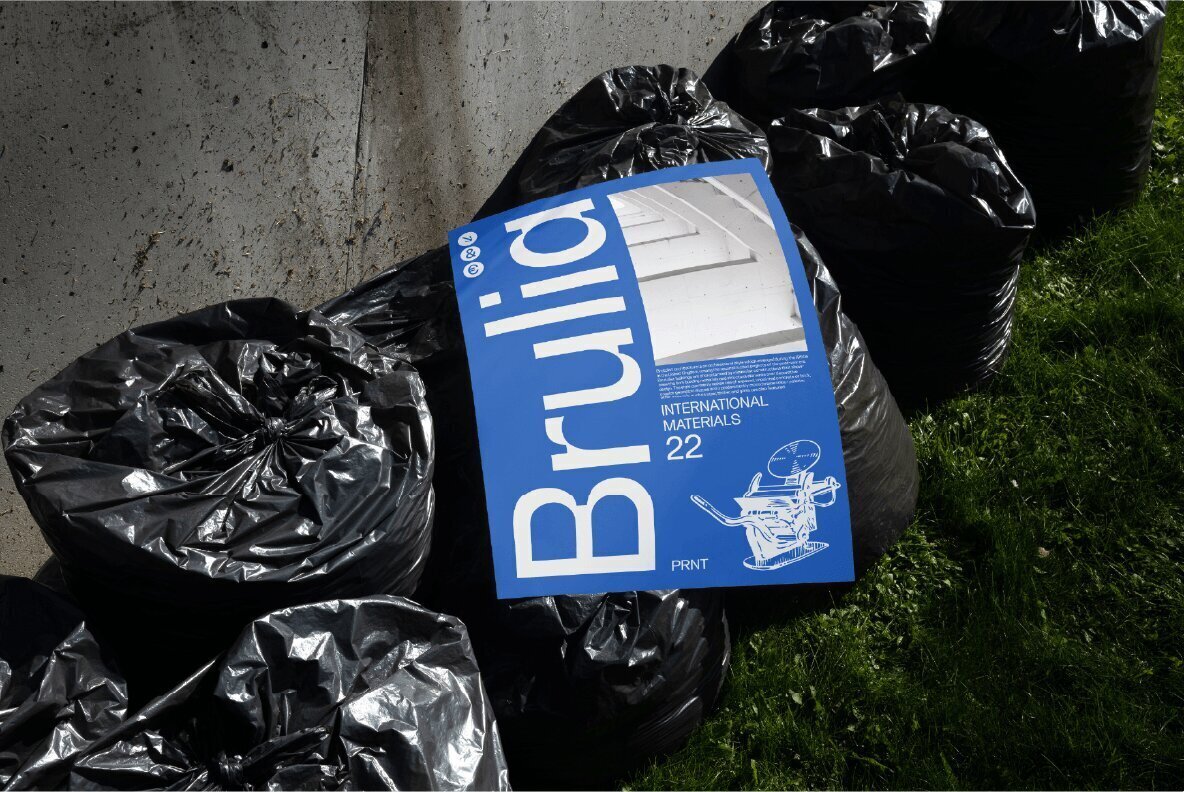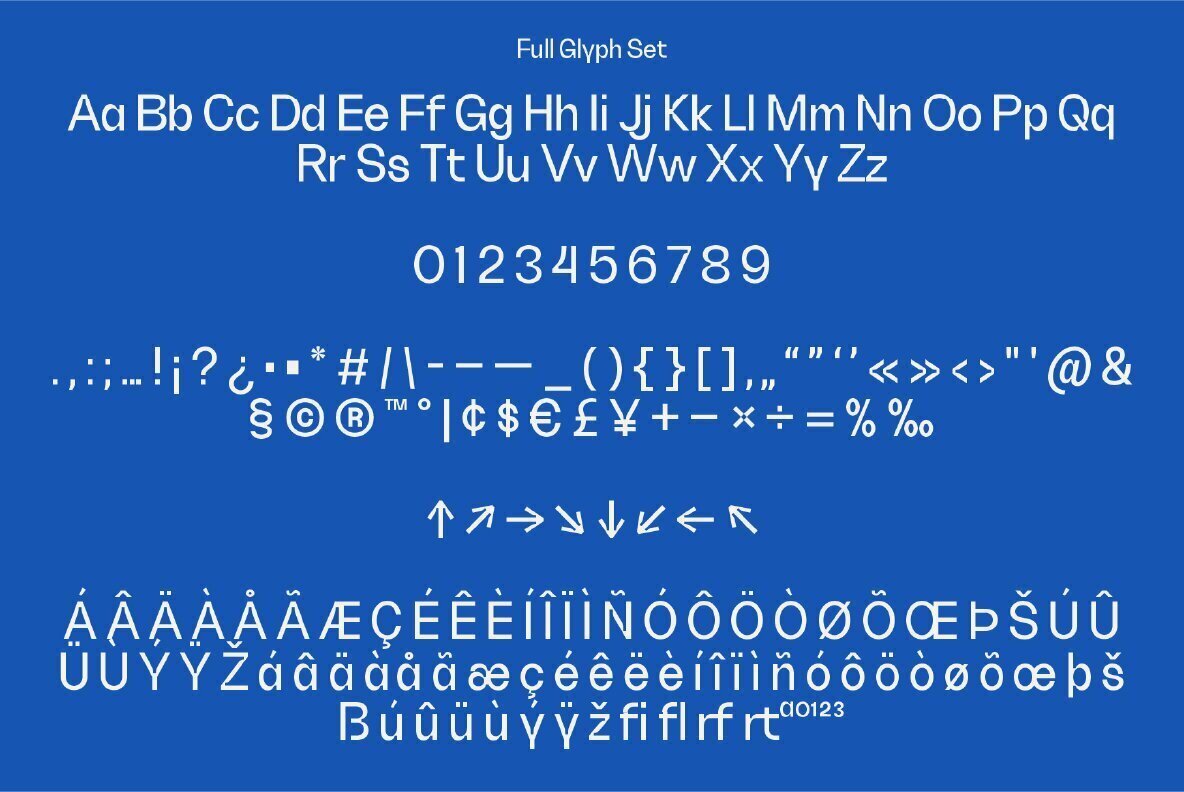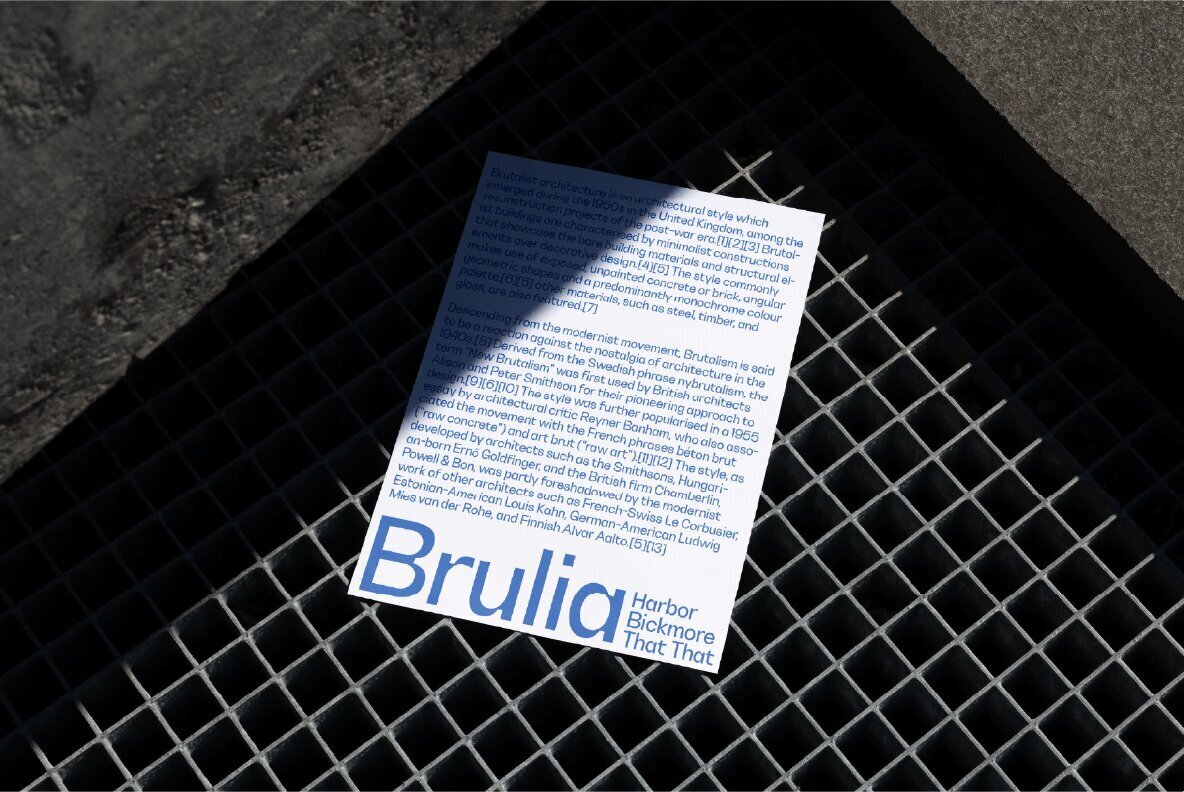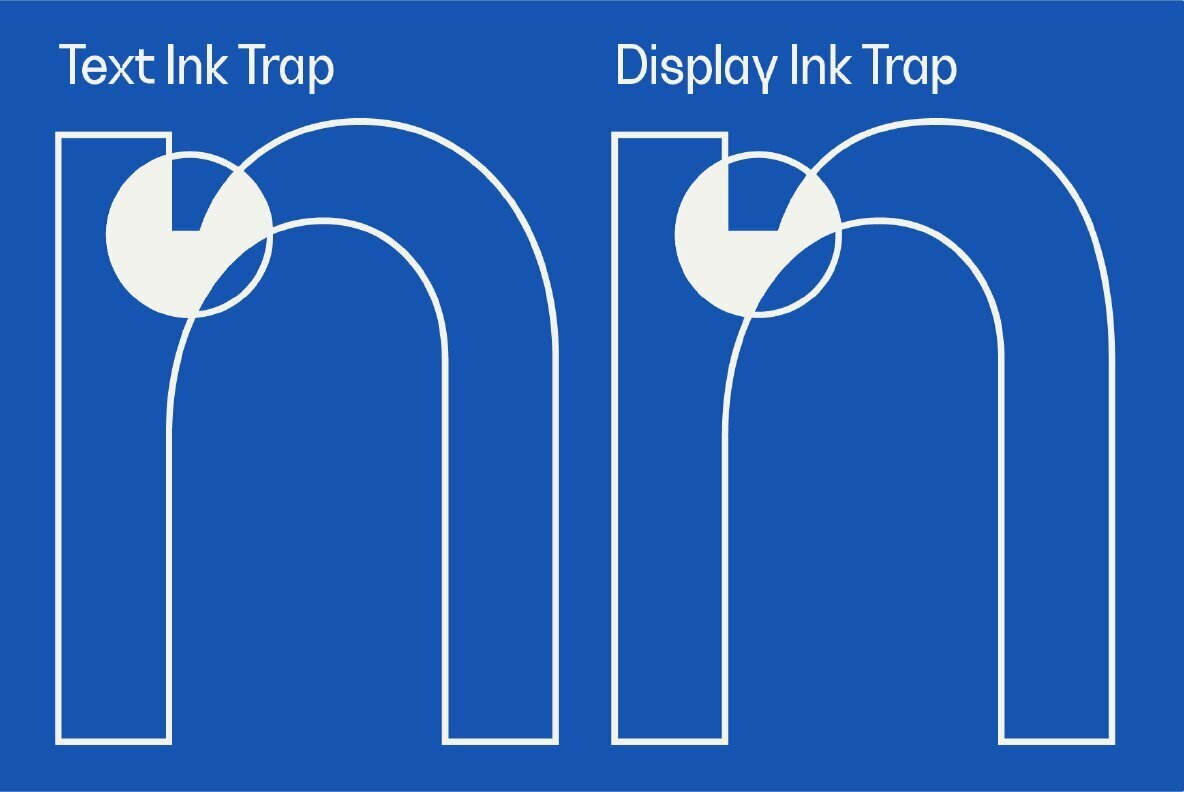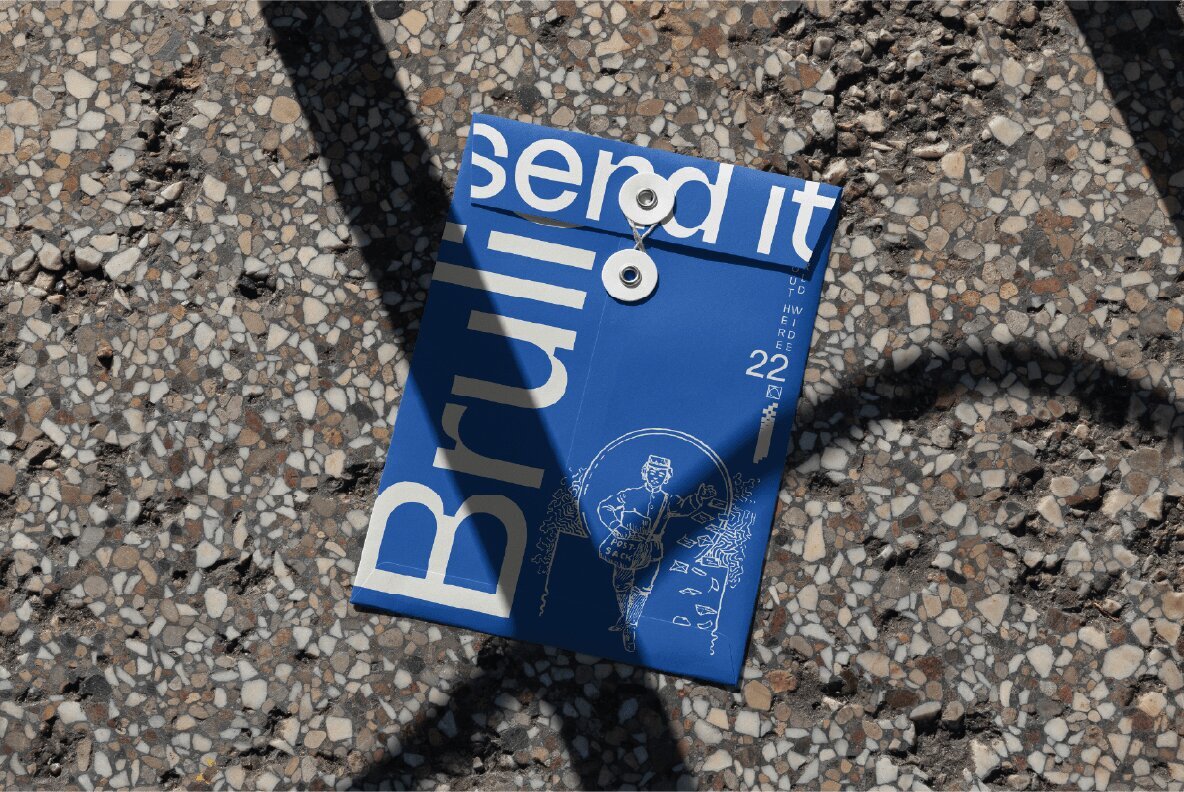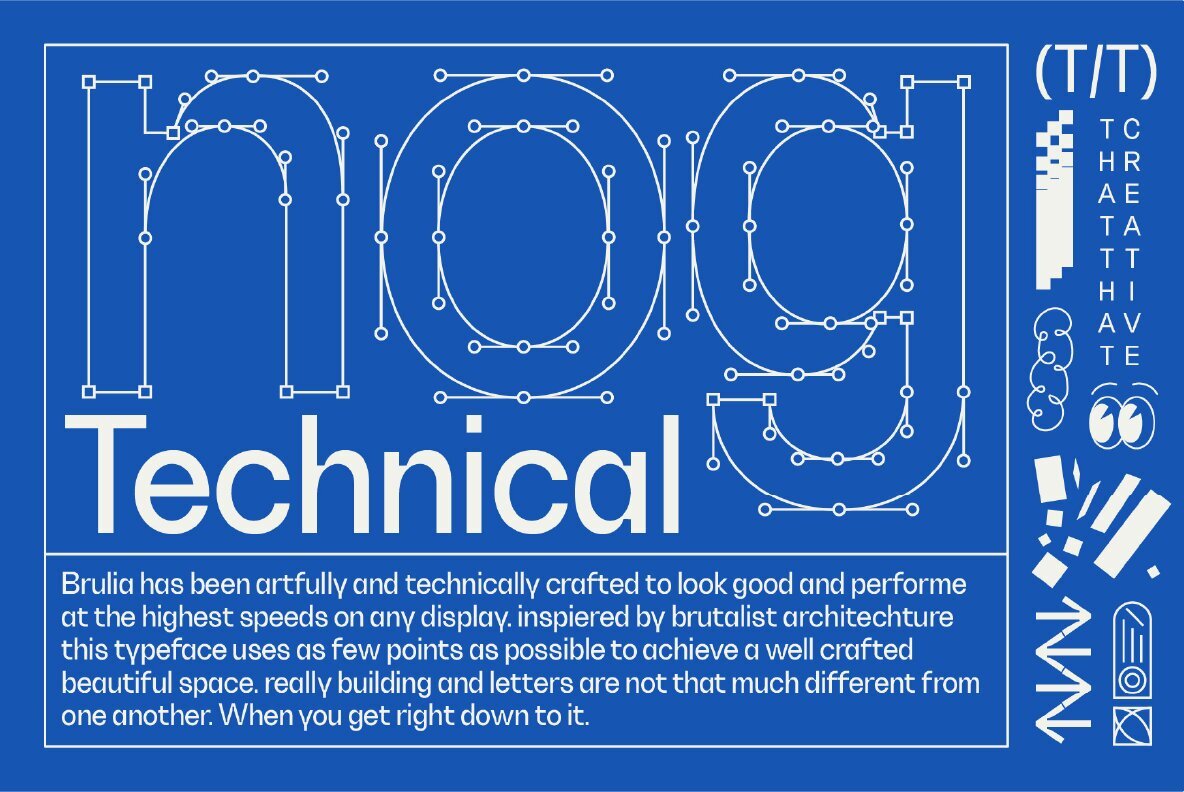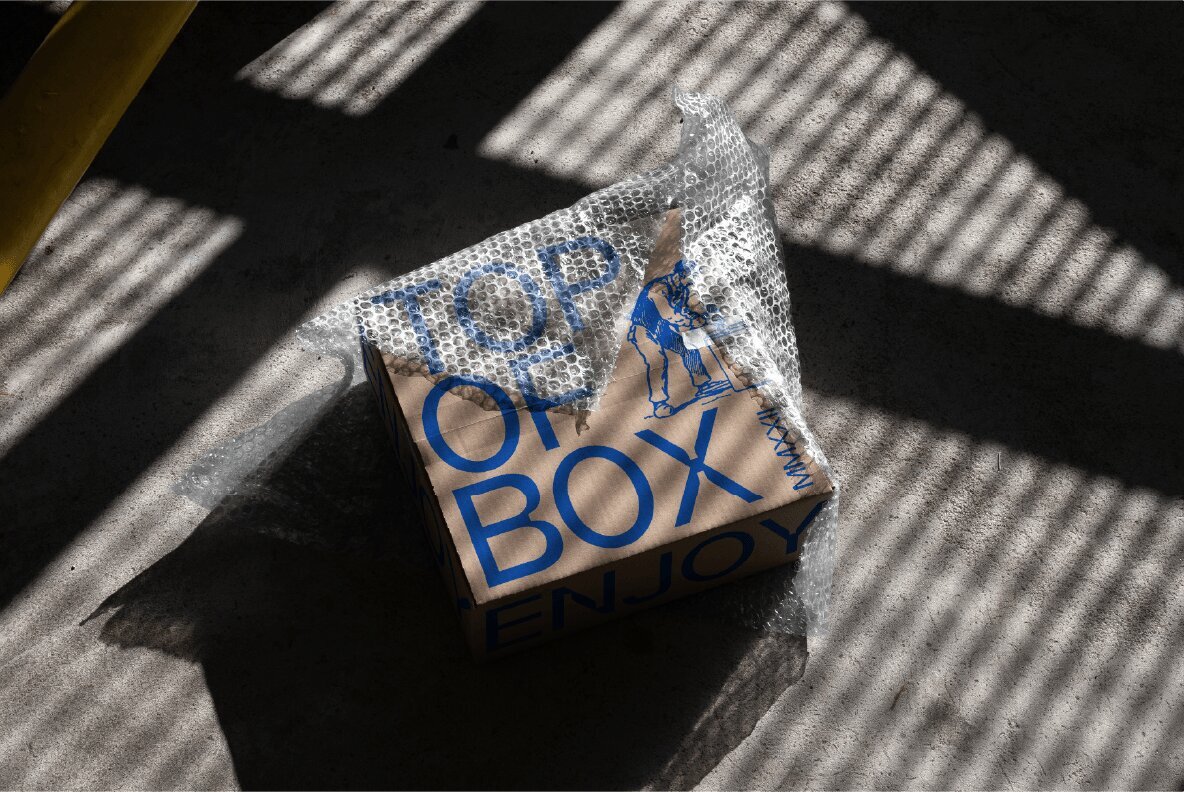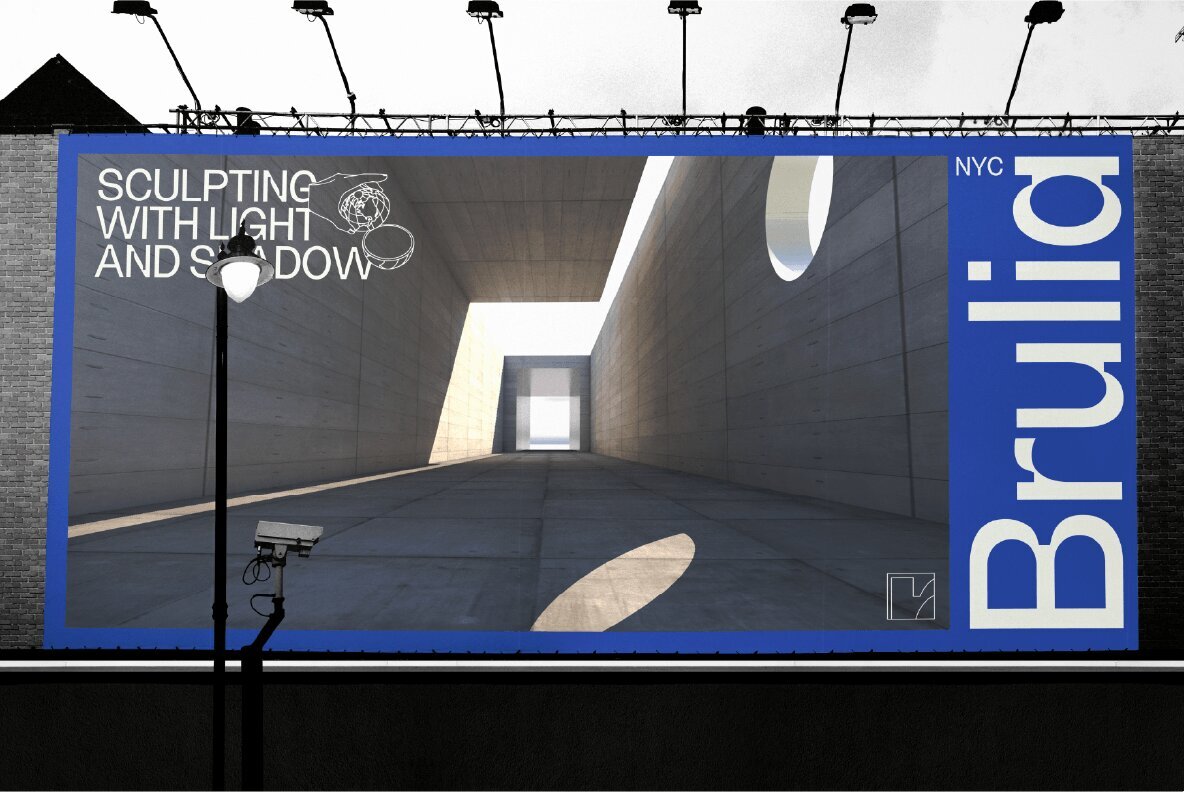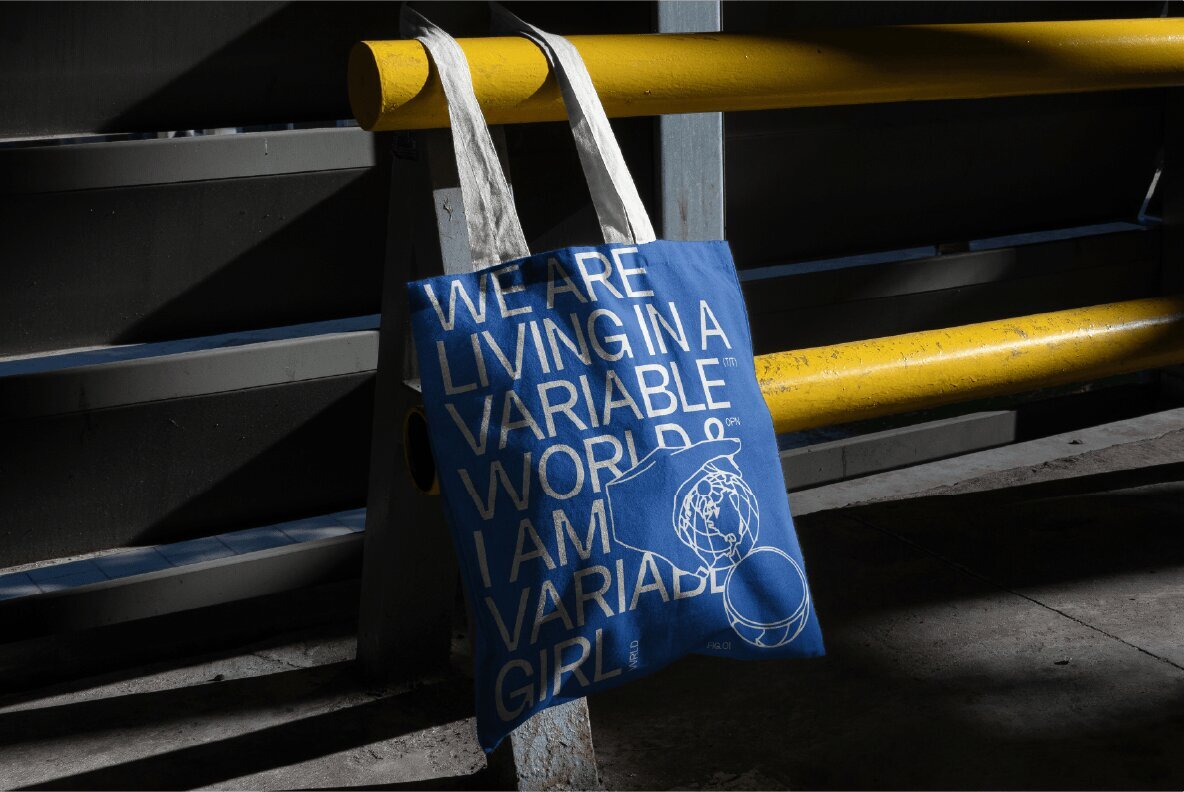
Brulia Font
Brulia Display
Brulia Text
Brulia Variable
The perfect typeface for designing logos and branding, Brulia's modern design will add sophistication to your minimalist geometric designs. This sans-serif font family has pronounced ink traps that allow it be used in any situation from web graphics (like Instagram, Twitter, etc) through to also print work like magazine covers or newspapers—even billboards!